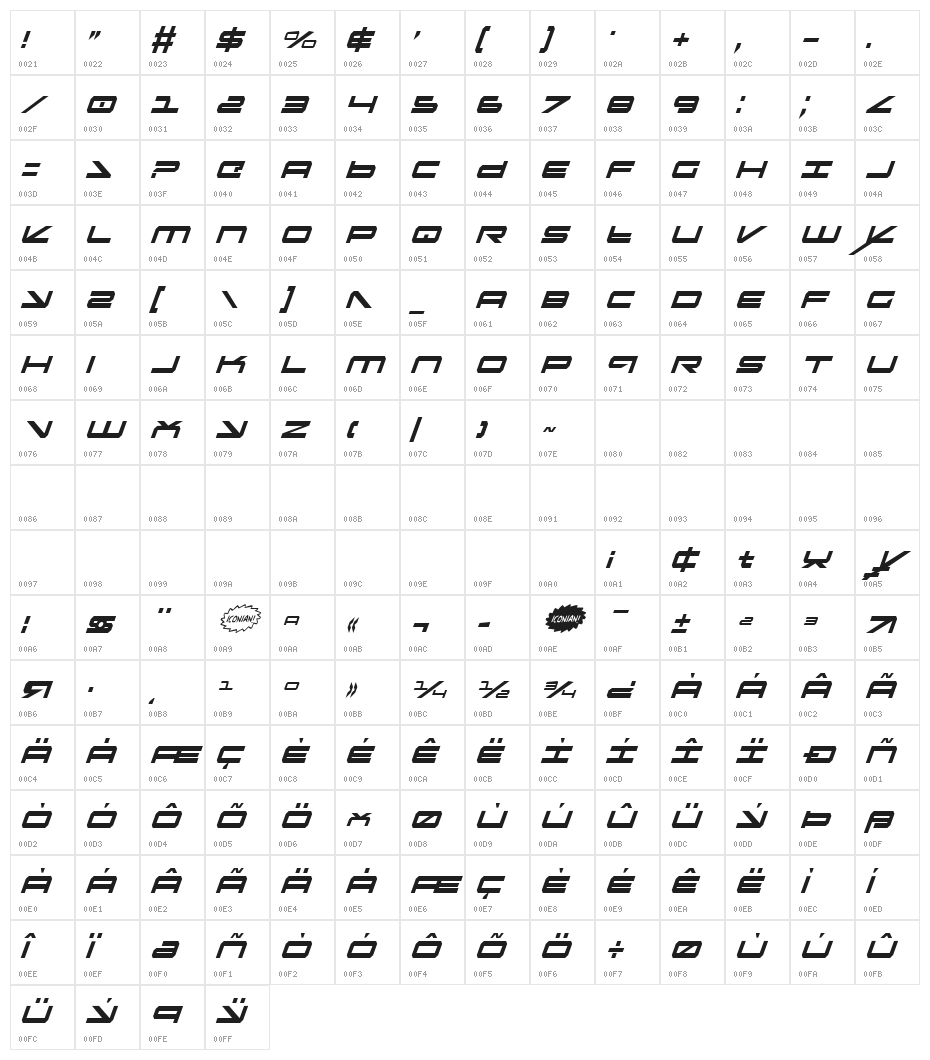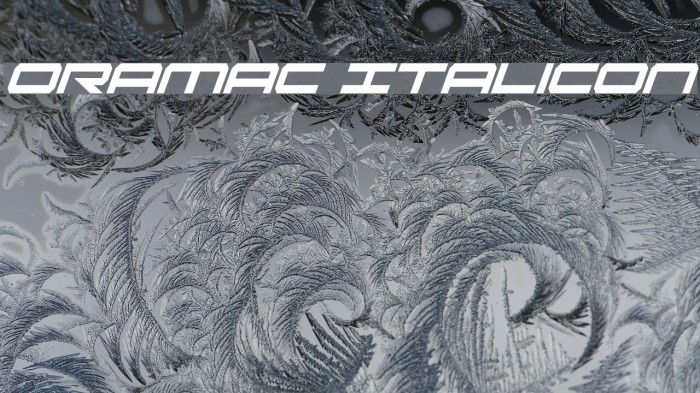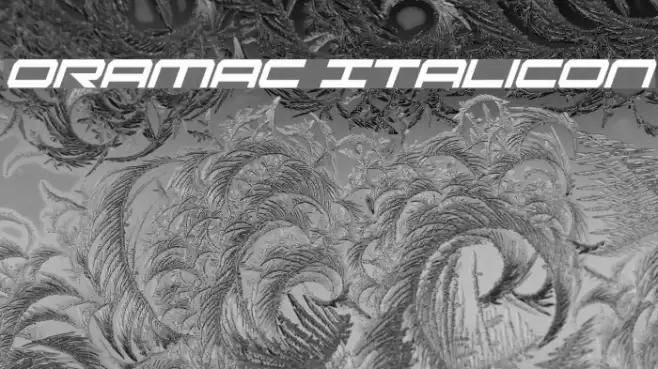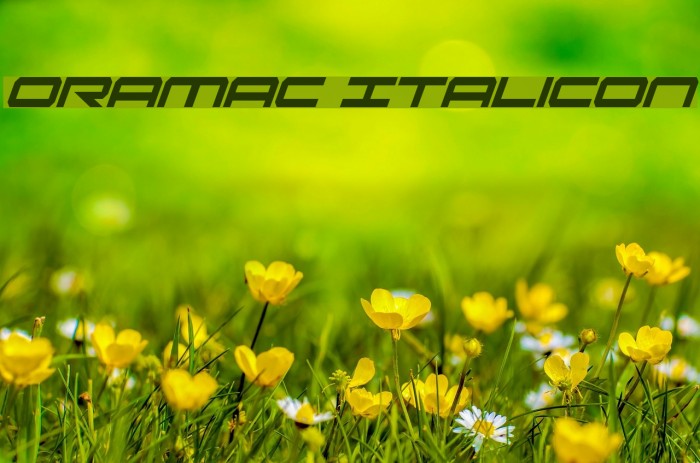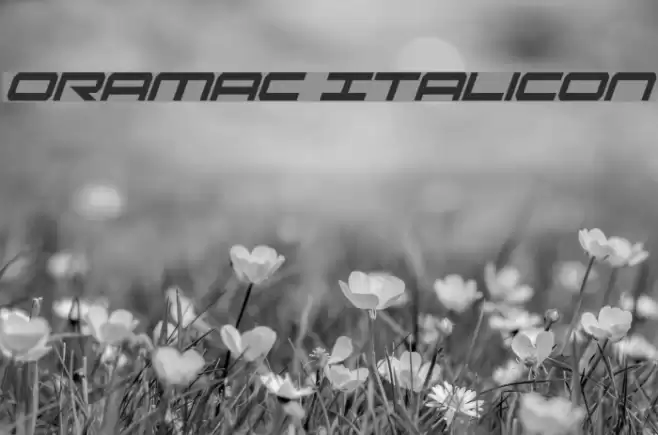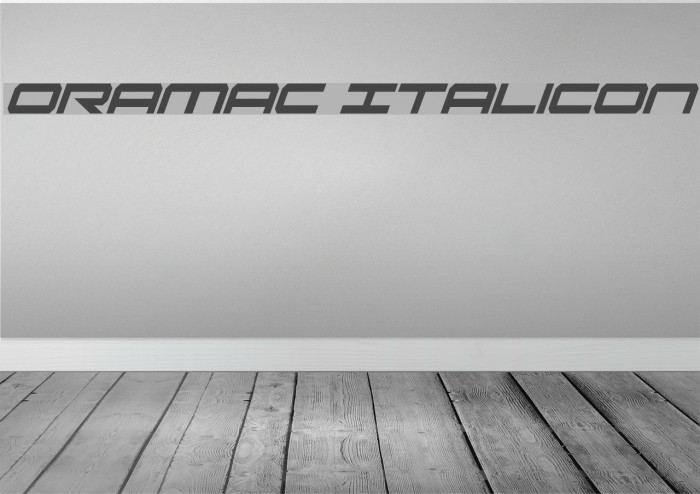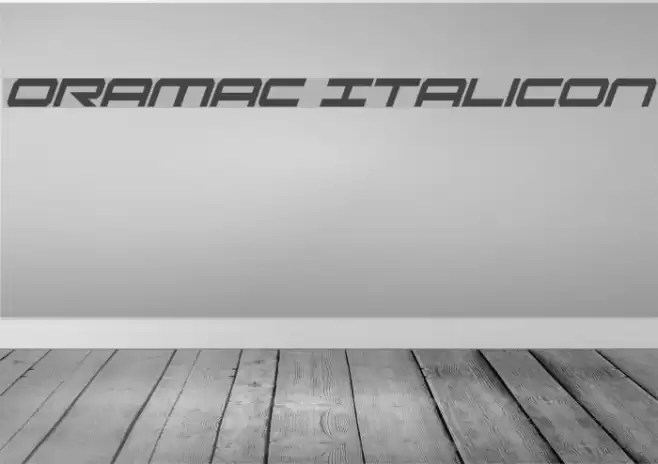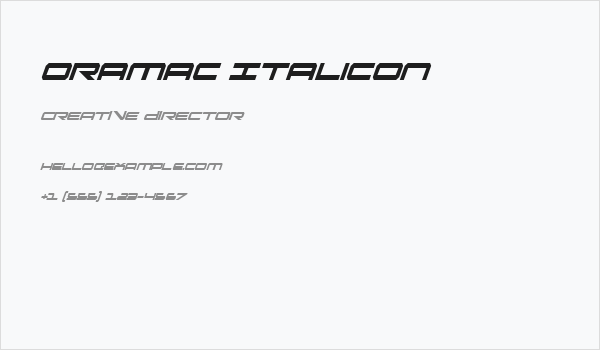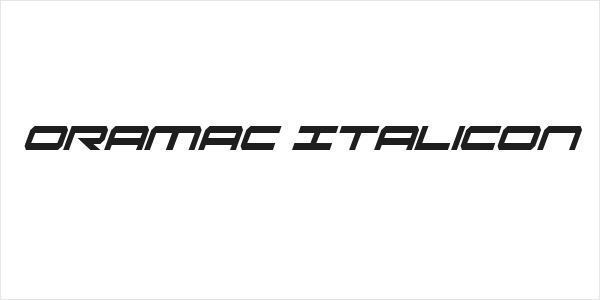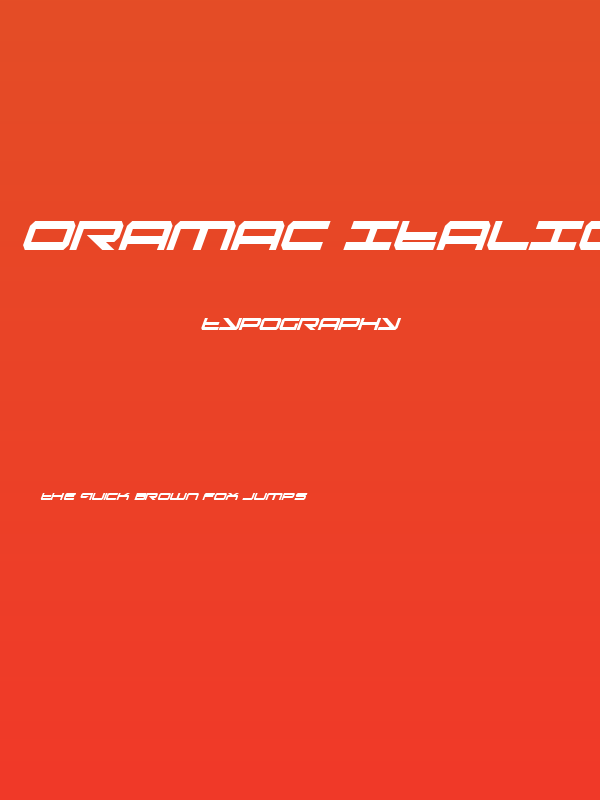
Oramac ItaliCon Font
Oramac ItaliCon Description
This font features a futuristic and angular design, characterized by its sharp edges and slanted orientation. The uppercase and lowercase letters maintain a consistent geometric style, with a distinct italic slant that adds a sense of motion and dynamism. The numerals and special characters follow the same angular theme, ensuring uniformity across all glyphs. The overall appearance is sleek and modern, making it suitable for projects that require a cutting-edge and tech-savvy aesthetic. The font's unique style is eye-catching and memorable, ideal for creating a strong visual impact.
| Proposed Projects | Ideal for technology branding, sci-fi movie posters, video game titles, and modern advertising campaigns. |